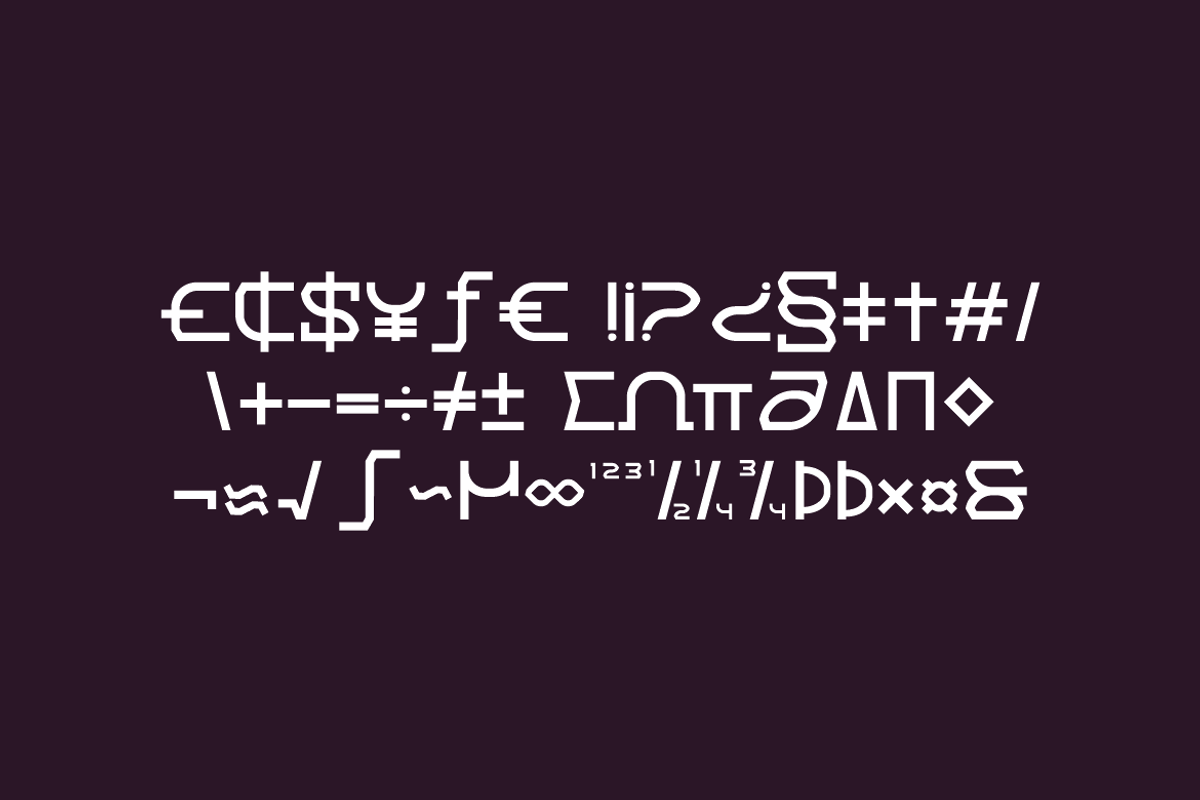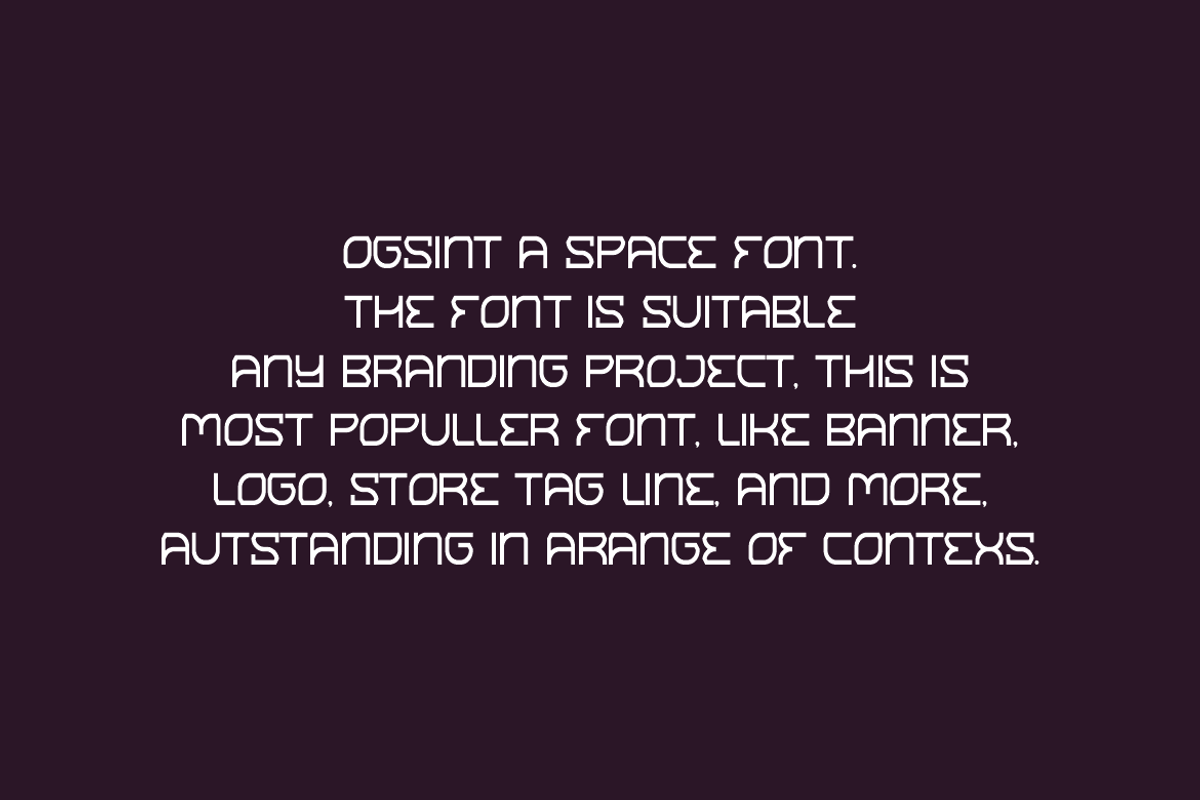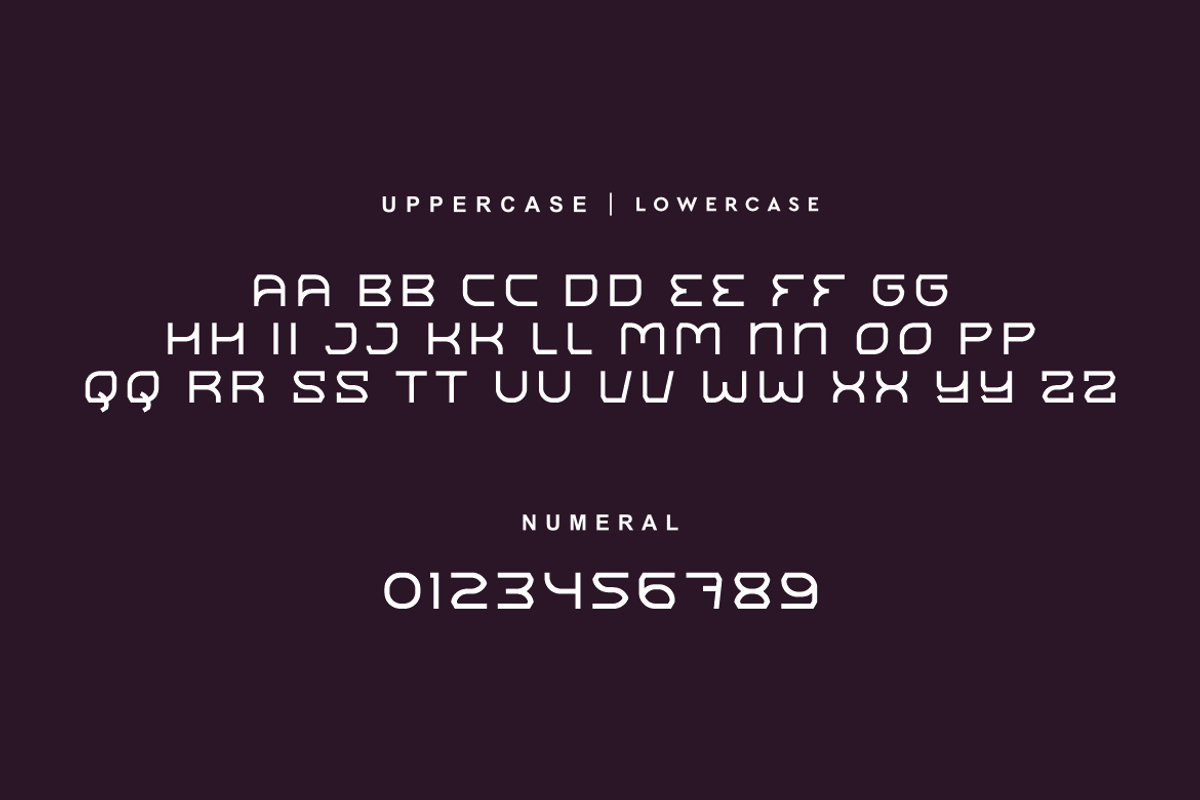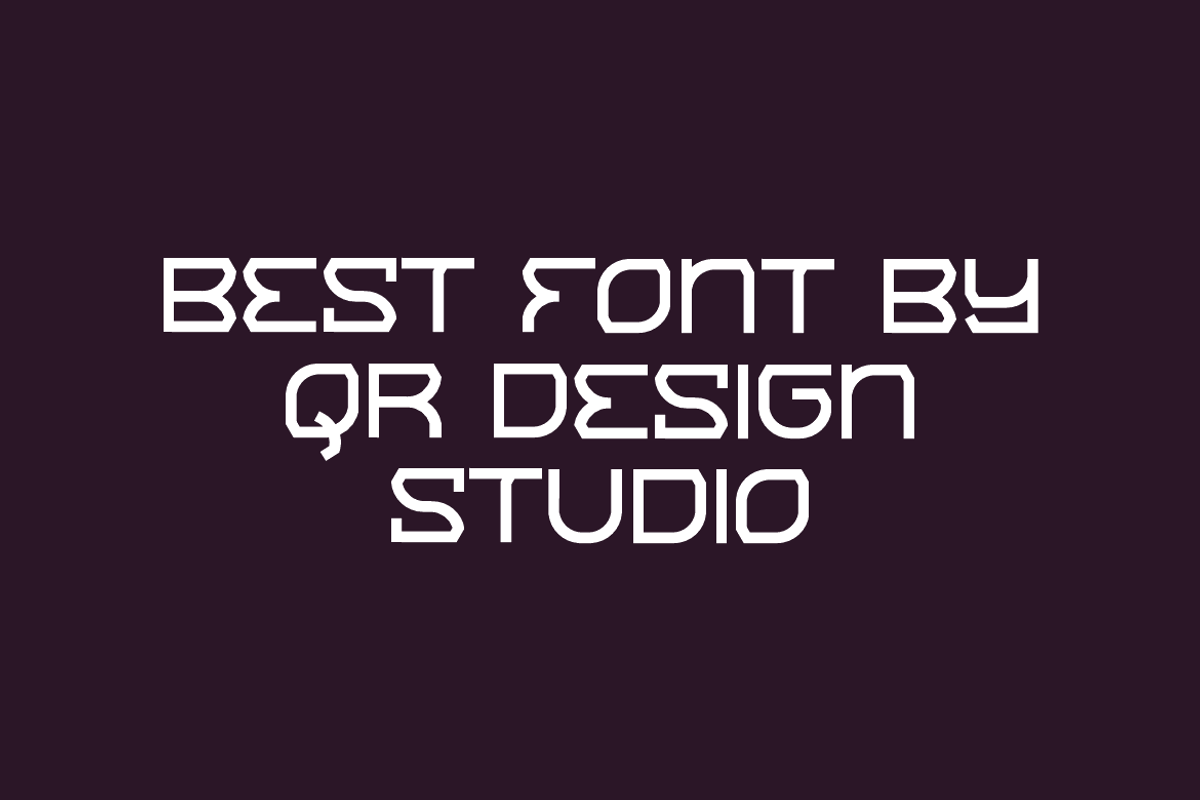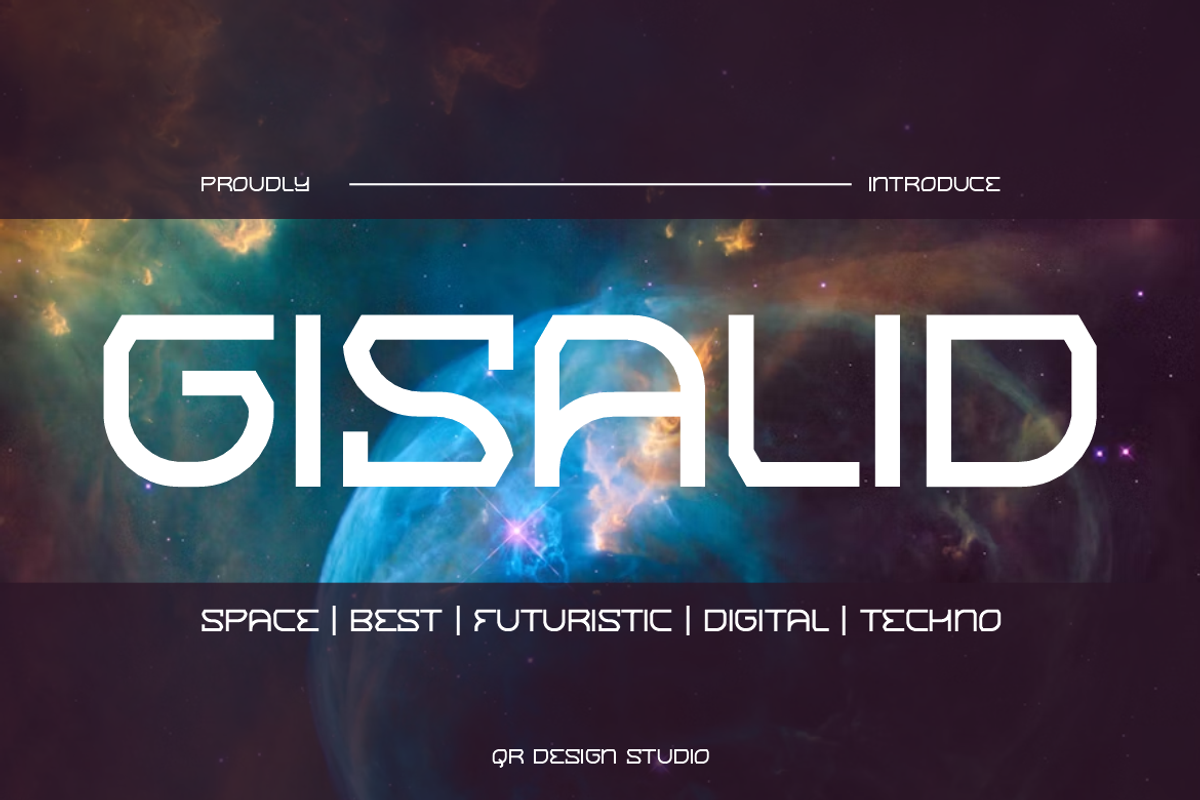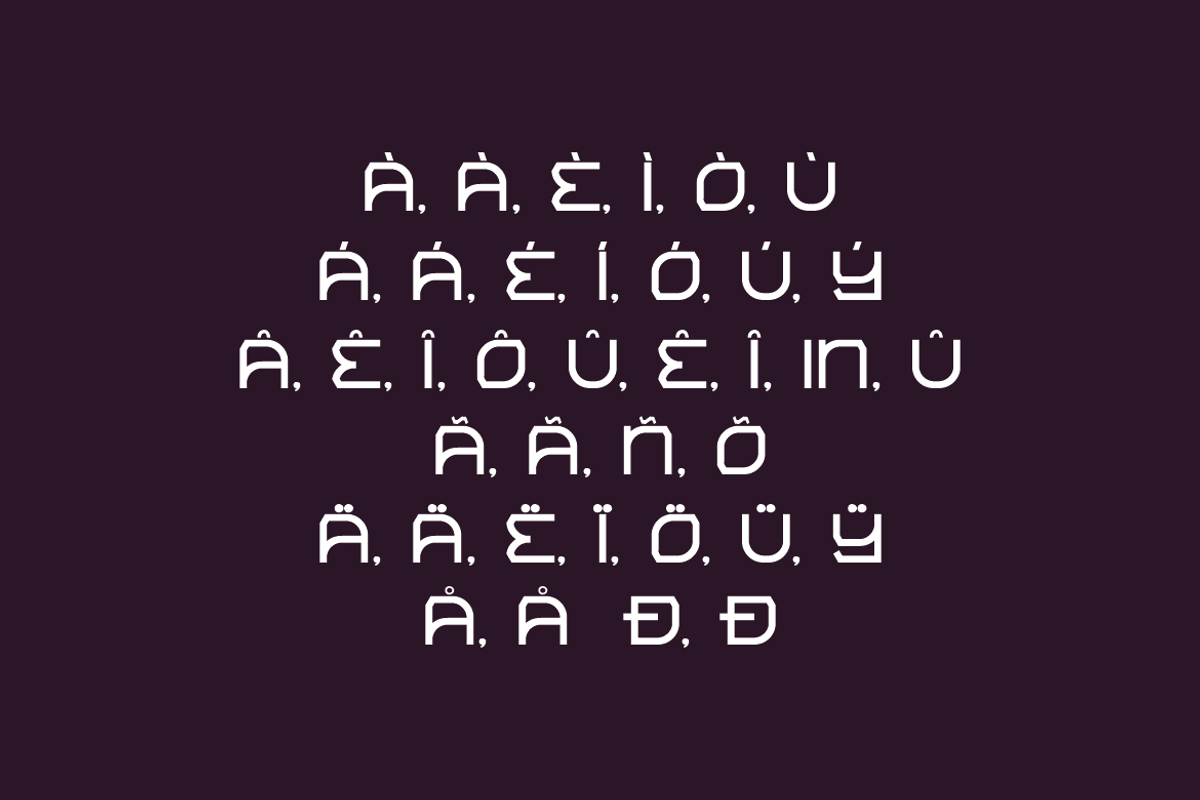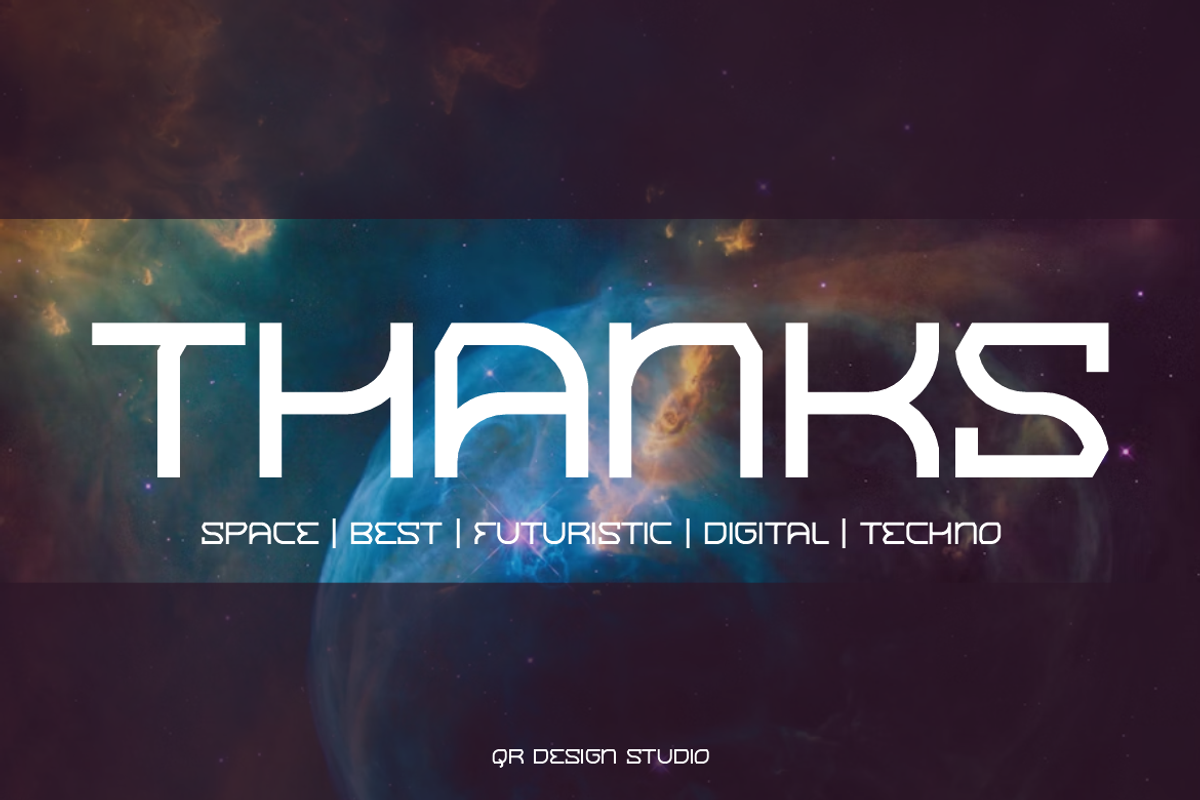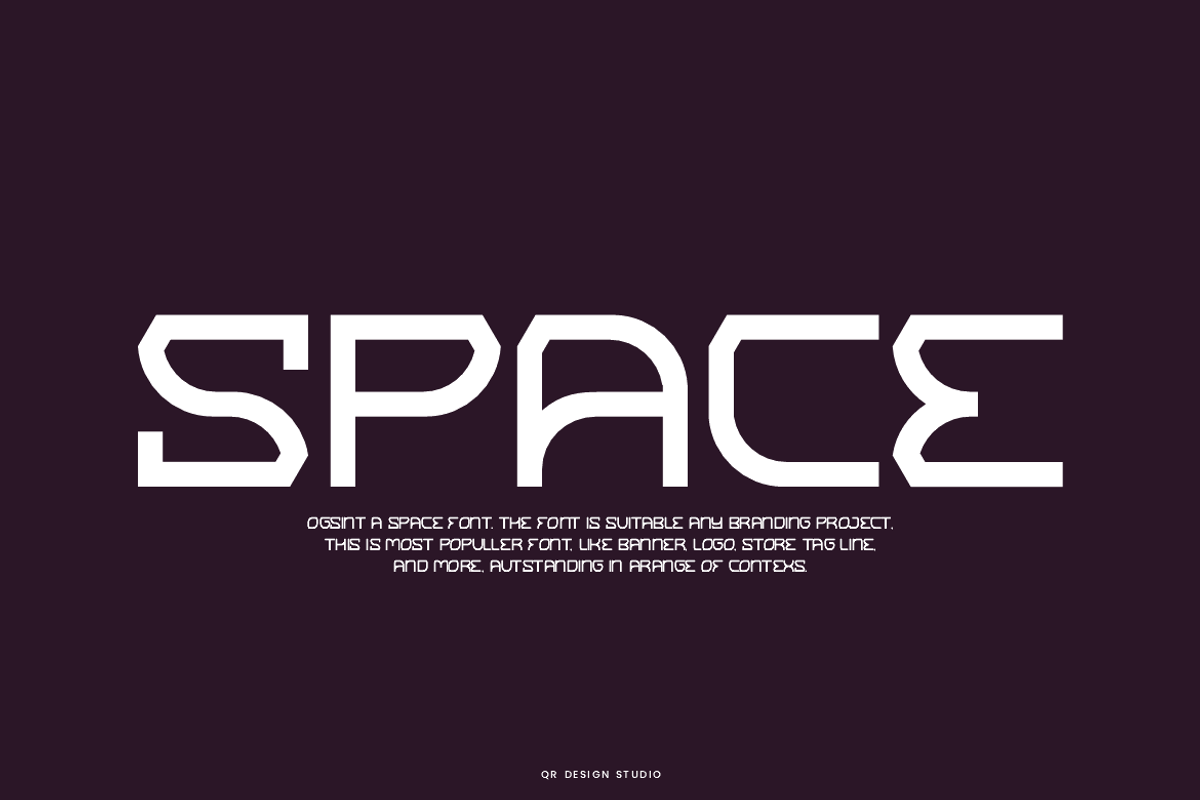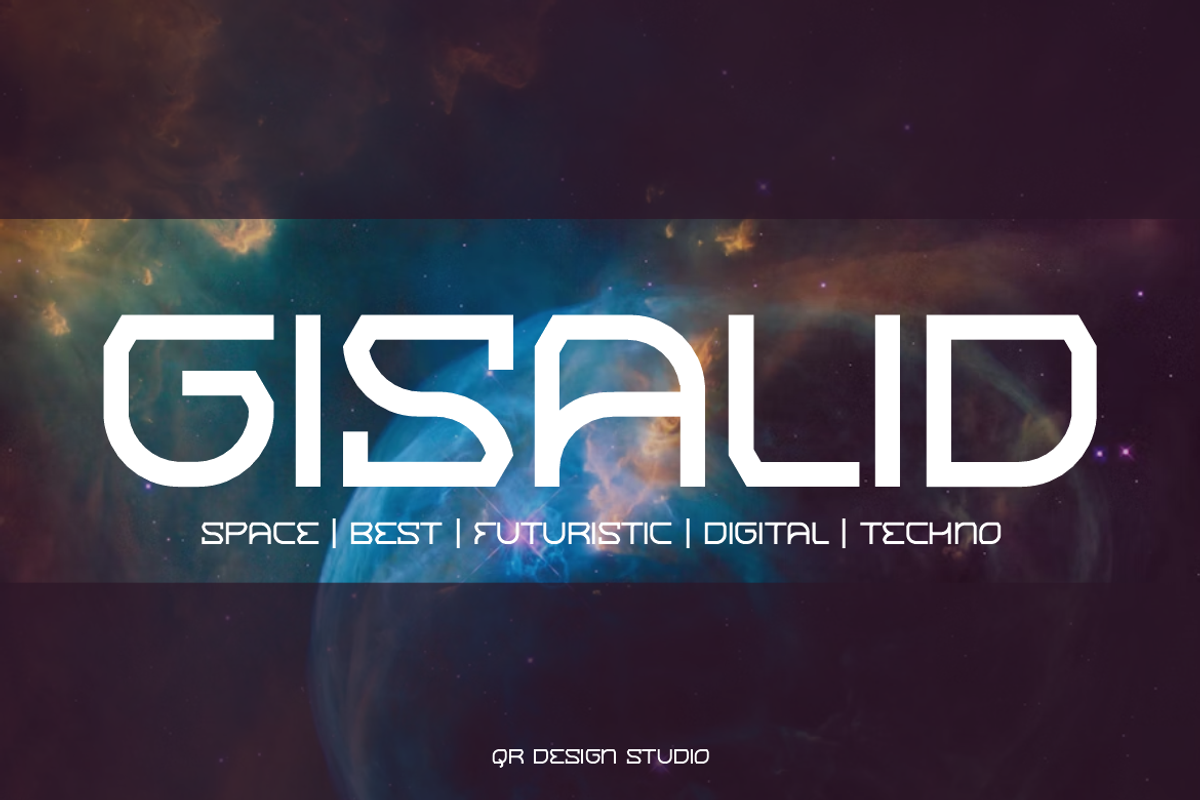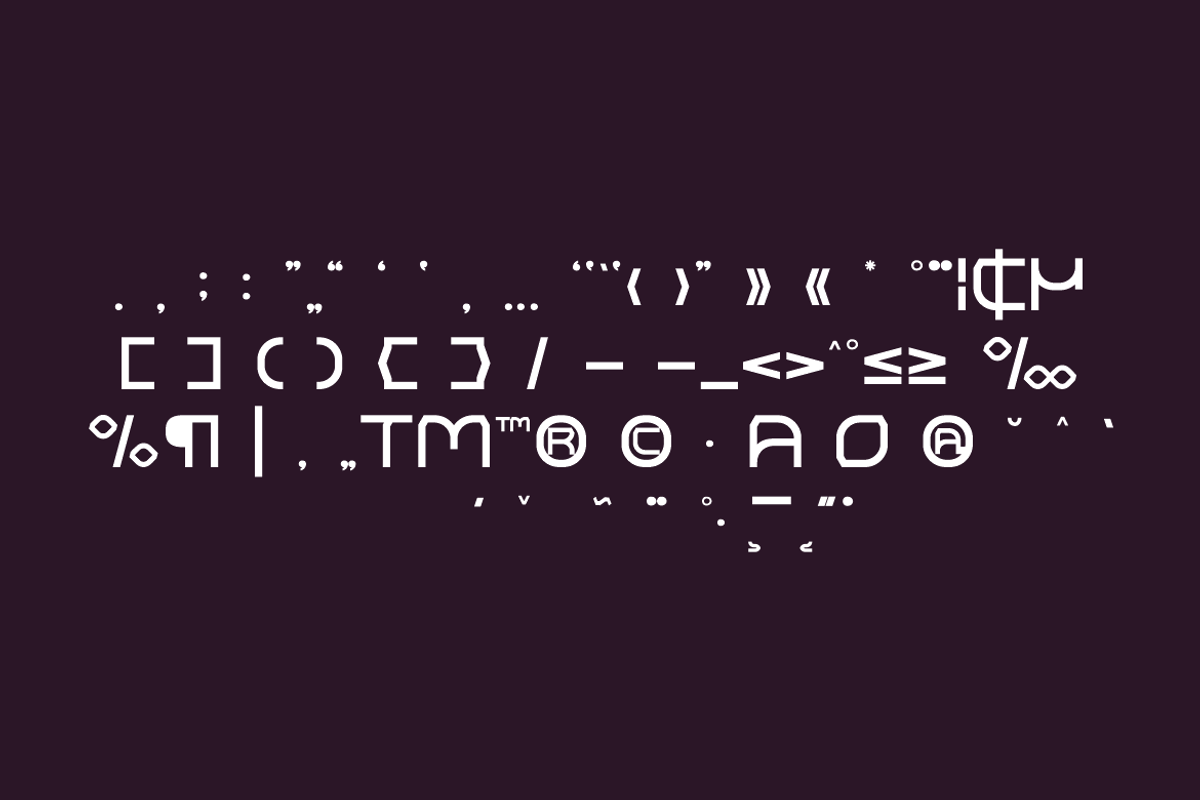
Gisalid - Space Font
Gisalid Font is a space and authentic display font. The font is suitable for any branding project like poster, logo, digital, and many more. Outstanding in a wide range of contexts.